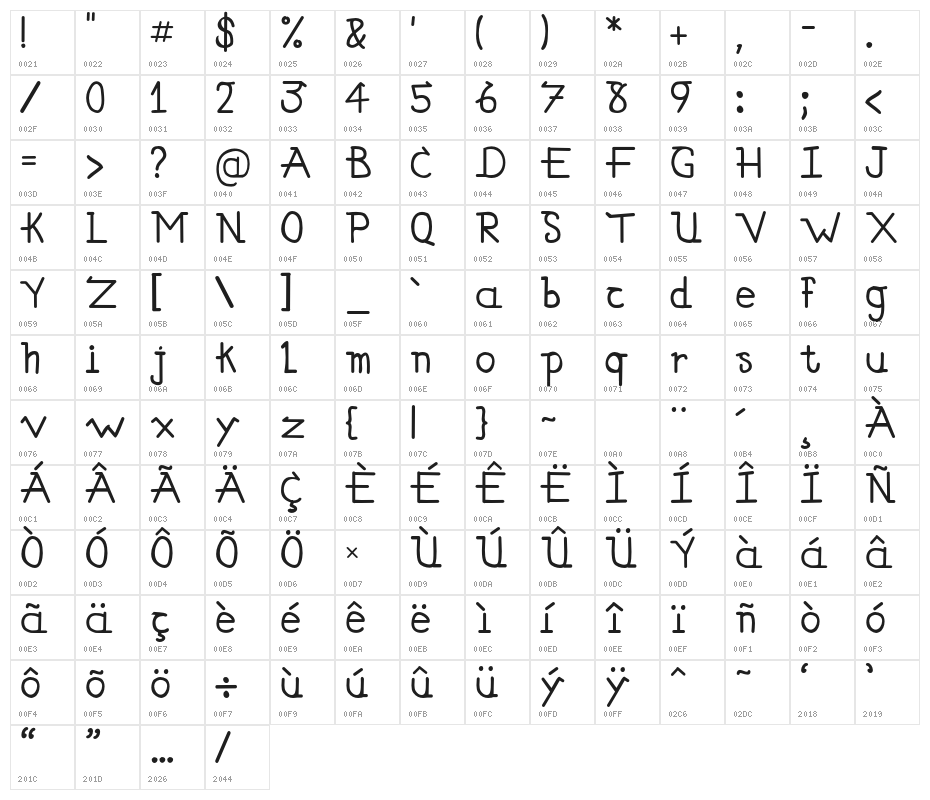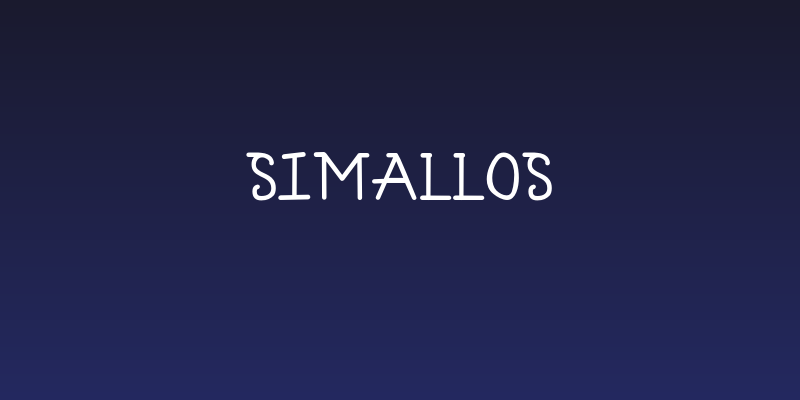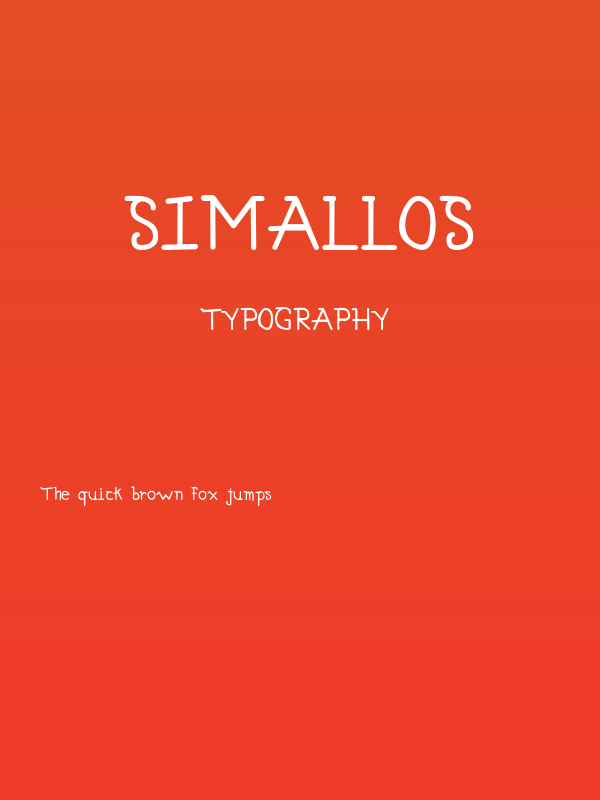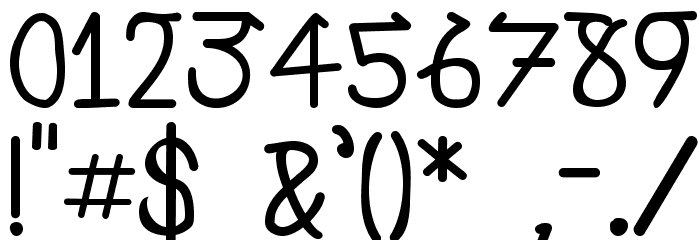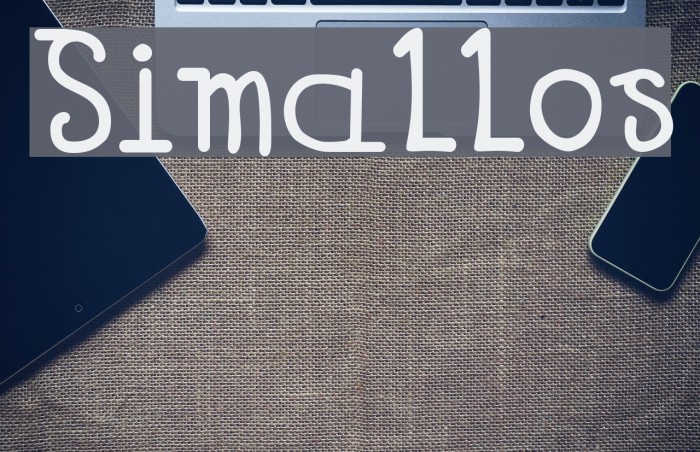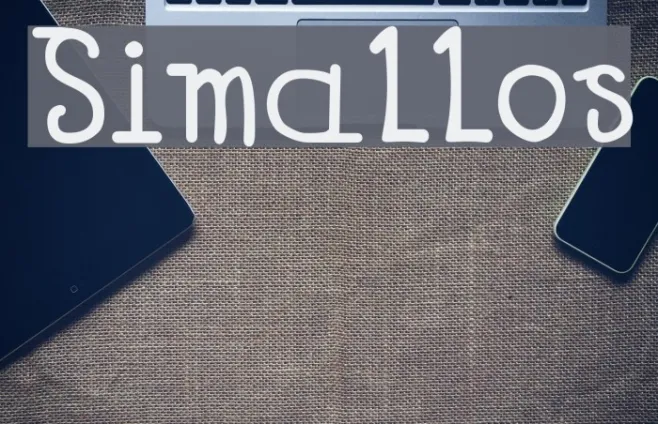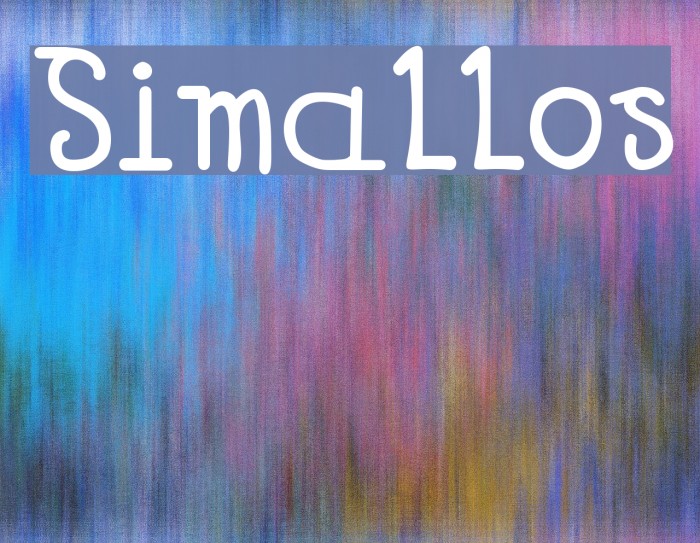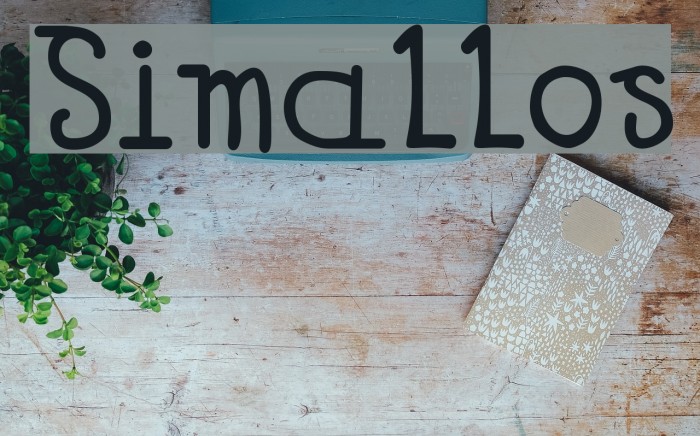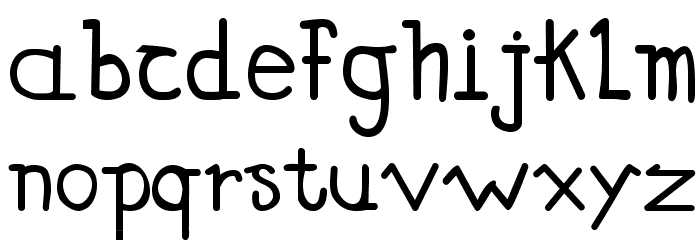
Simallos Font
Simallos Description
This font features a playful and quirky style with a handwritten appearance. The characters have a unique, slightly irregular form that adds a sense of whimsy and creativity. The uppercase letters are bold and distinct, while the lowercase letters maintain a consistent flow with rounded edges. Numbers and special characters follow the same playful design, making the font versatile for various creative projects. The overall look is casual and friendly, perfect for adding a personal touch to any design.
| Overall Style | Casual and playful |
| Proposed Projects | Ideal for children's books, greeting cards, playful branding, and creative posters. |